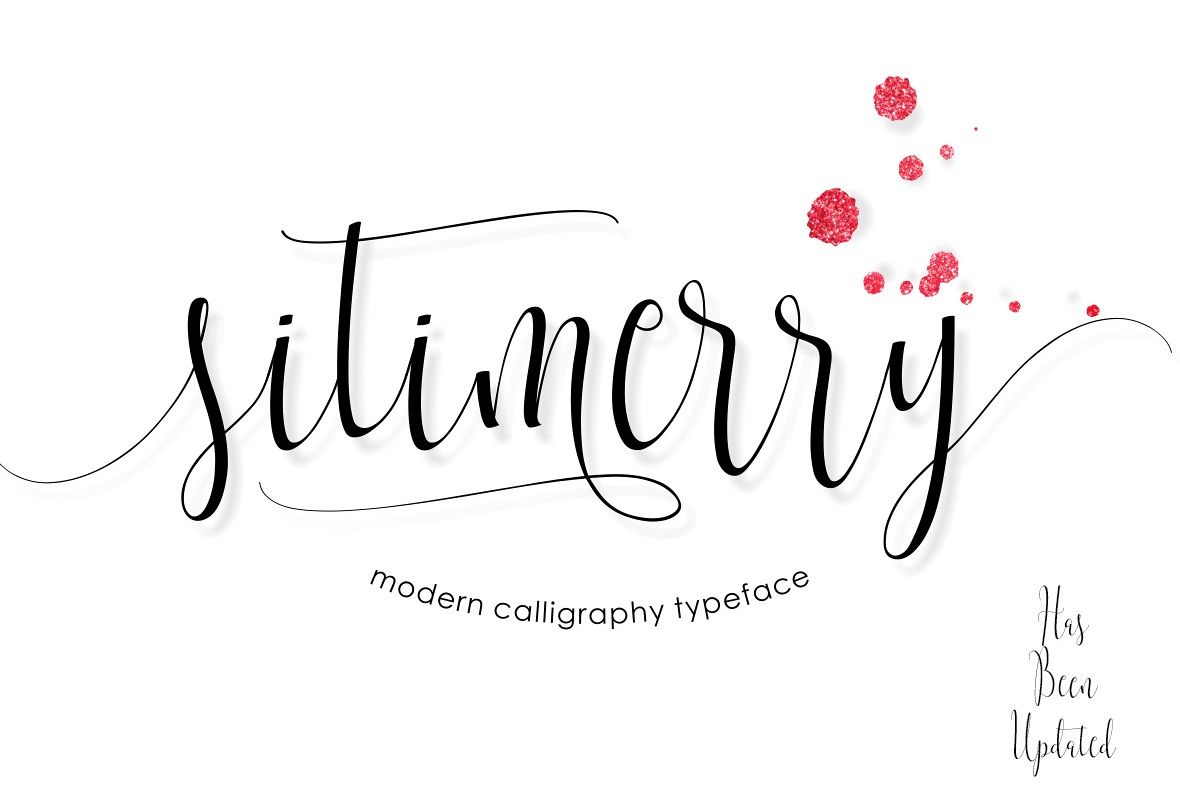
Sitimerry Script
Hello friends! Introducing my letter Siti Merry Script Letters of Your Big Day. Pulsating movement and in line with your life, this is the sacrifice I made by hand is soft and smooth shape dazzling and I could stare at it for hours. Thin and beautiful like modeling on the cover of magazine, any clothing / costume worn still look pretty and beautiful too alluring Heart. Really captivate the audience shouted and I love you and that I made Sitimerry Script Inspiration.
Suitable for the needs of design, modern design, Gift Cards, Invitations, Wedding, Special Occasion, Branding, Stationery Design, Advertising Design, and a variety of other needs.